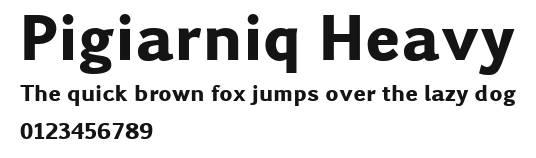
• Font Name: Pigiarniq Heavy
• Designer: Wm. Ross Mills
• Description: Pigiarniq Inukitut syllabics is a font containing the maximum repertoire of characters included in Canadian Syllabics, as well as roman characters required to support English, French, and all other languages supported by the Codepage 1252. Additional characters are included to support further orthographies including Greenlandic. Inuktitut Syllabic portions of Fonts distributed under the name 'Pigiarniq' are Copyrighted material of the Government of Nunavut. Latin, or non-Inuktitut syllabic portions of the Fonts are Copyrighted material of Tiro Typeworks.
Pigiarniq Heavy.ttf is a modern, elegant sans-serif font designed for ultimate readability and visual harmony. Perfect for branding, headlines, web design, and print materials.